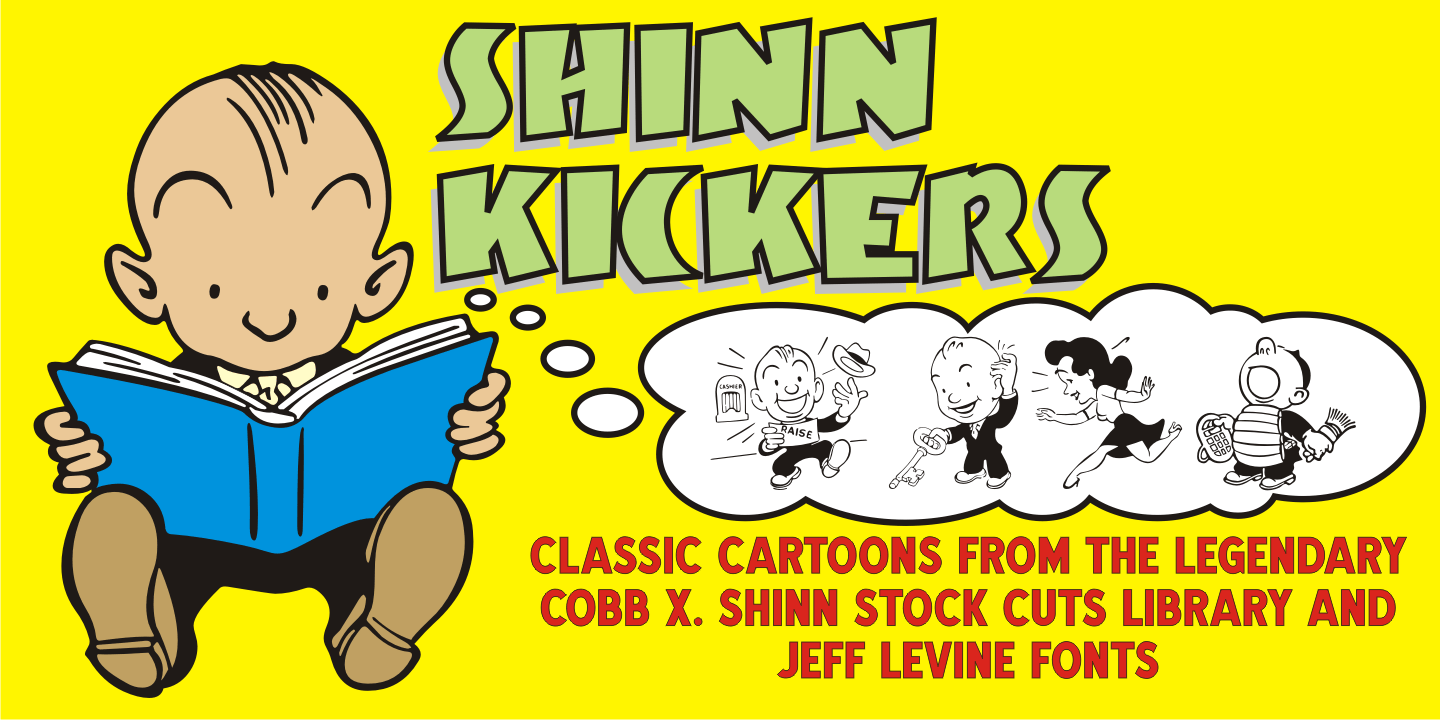
Shinn Kickers
Conrad X. 'Cobb' Shinn (Sept. 4, 1887- Jan. 28, 1951) was a Fillmore, Indiana-born post card illustrator who sold a series of successful novelty postcard lines which included (among others) Charlie Chaplin, automobiles and the Dutch culture in the beginning years of the 20th Century.
After serving in World War I, Shinn found the market for novelty postcards dwindling, and he also lent his artistic skills to cartoon features and illustrating many children's books [including his own, under the nickname 'Uncle Cobb'] which taught easy step-by-step drawing methods.
Some time in the 1920s, he eventually migrated into the field of supplying electrotypes and stereotypes of 'stock cuts' of photos and line art to the printing trade. In the days of letterpress printing, this was the forerunner of paper clip art and its successor, electronic clip art.
Purchasing many of his designs from 'journeyman' artists of the time, the diversity Cobb Shinn's stock cuts library grew with the passing years, reflecting changing times, styles and topics.
Some of the illustrators whose signed works were presented in Shinn's 'CUTalogs' [as he called his stock cuts catalogs] include Mary Clemmitt, Louis H. Hippe, E.C. Klinge, Nelson White, Harvey Fuller, Bess Livings, Lois Head, Harvey Peake and Van Tuyl.
Upon his passing in 1951, it's not known how long the Indianapolis-based company existed before finally closing its doors.
One of the more popular series of cartoons were the line illustrations of men and women affectionately called 'little big head guys' by many modern fans of these cuts because the heads of the characters were drawn somewhat larger than the rest of their bodies.
Shinn Kickers JNL is a collection twenty-six of these illustrations, and just like a kick in the shin (as the pun in the name implies), these charming cartoons get your attention.